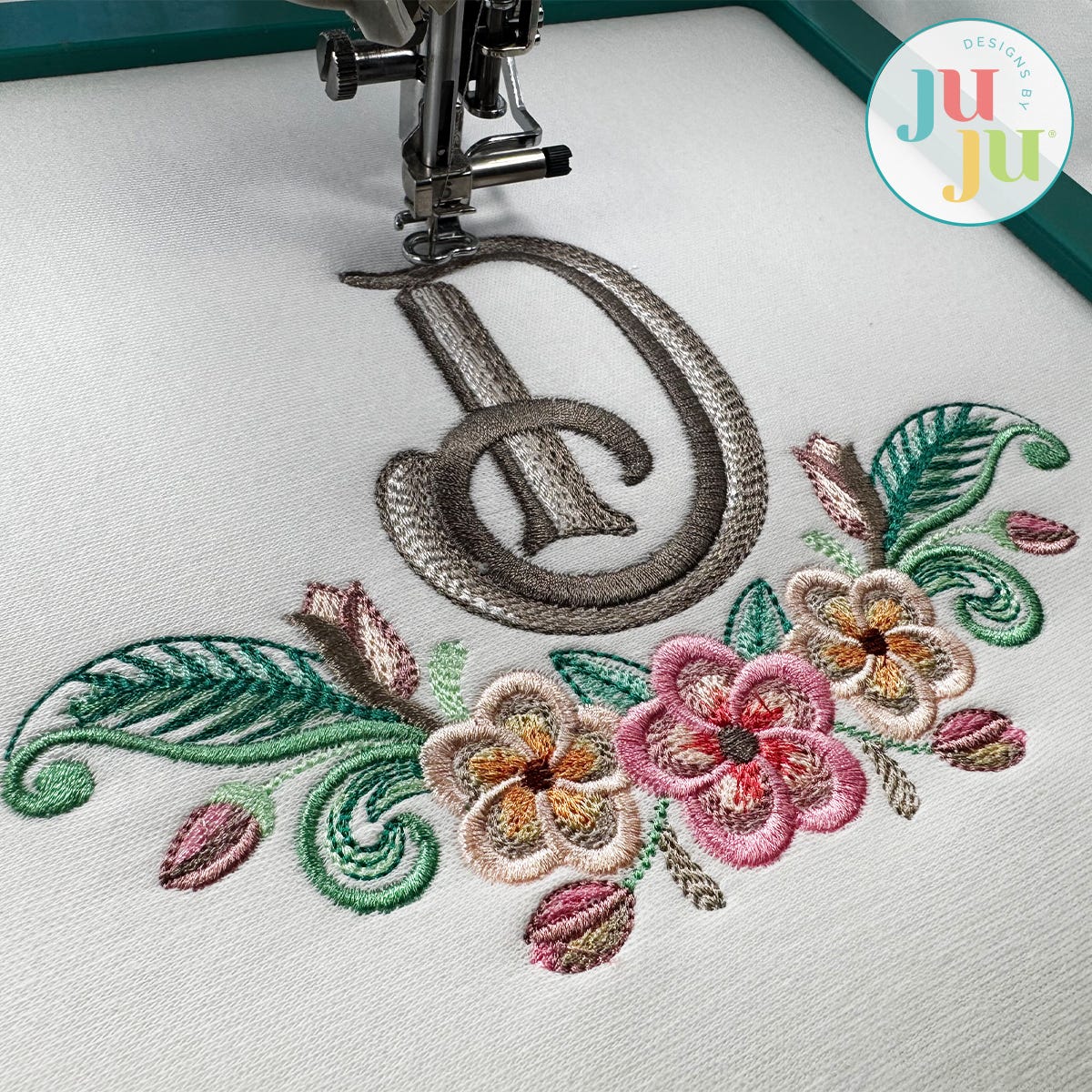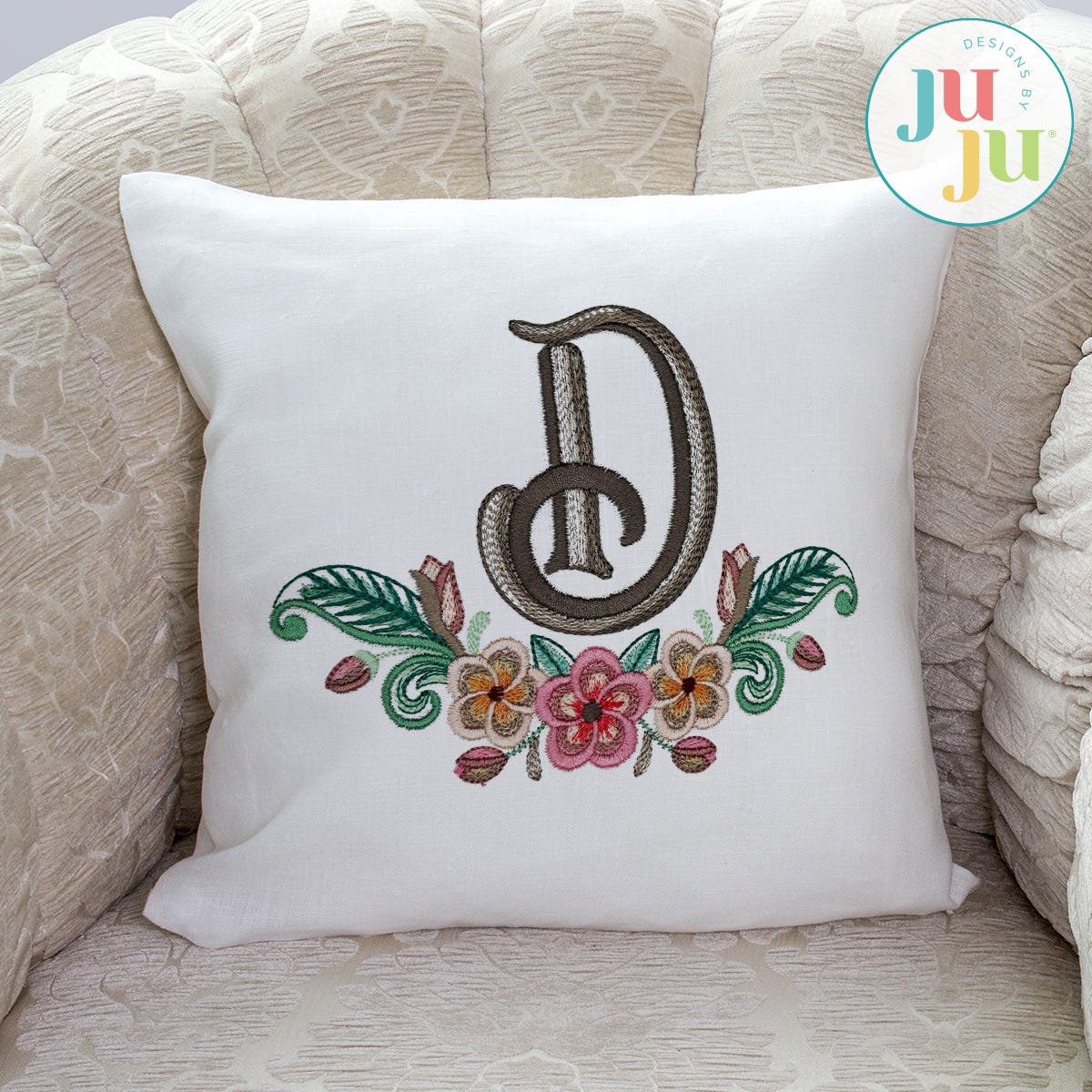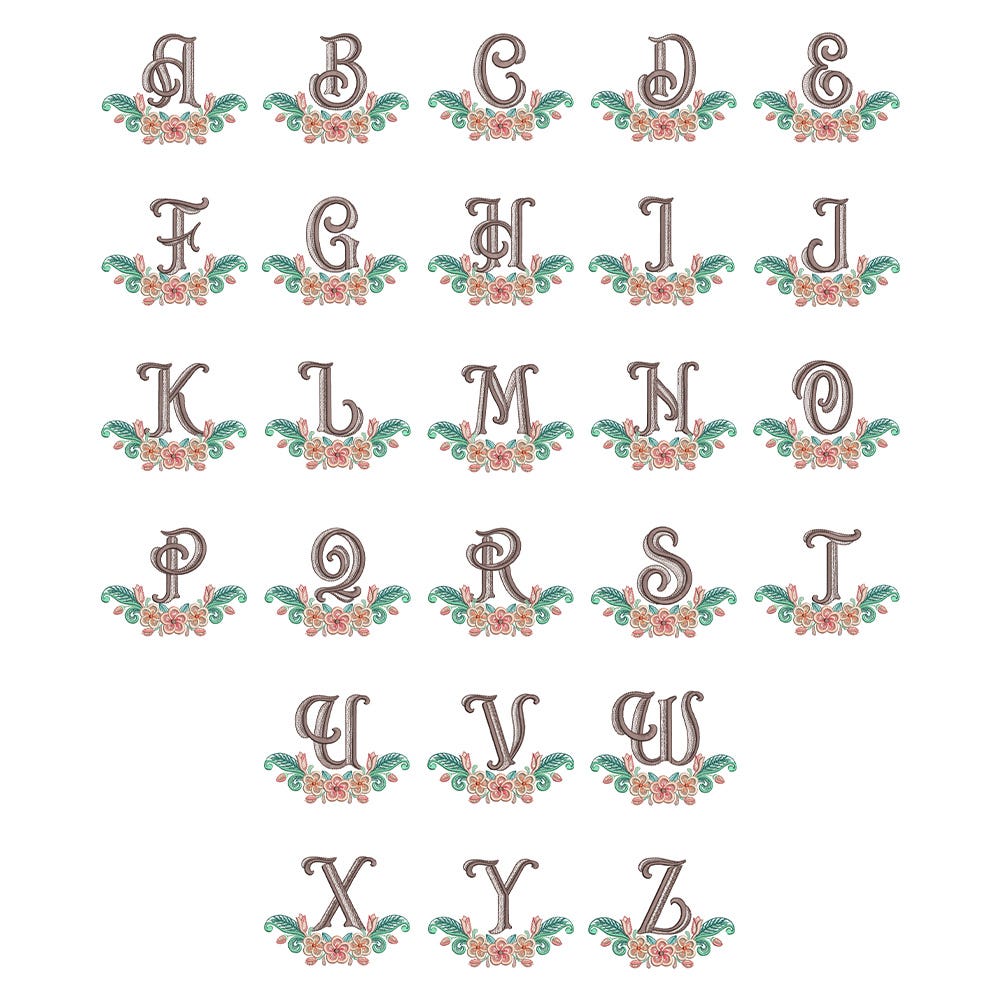
Floral Swag Monogram Embroidery Font
Add a delicate floral touch to your stitching with our Floral Swag Monogram! This elegant embroidery-only alphabet features graceful monogram letters accented with sweet floral swag embellishments for a soft and timeless look.
These designs feature a variety of beautiful stitch types, including multiple color layers of lighter density fill to create a blended, textured look. Refer to the included color charts for details.